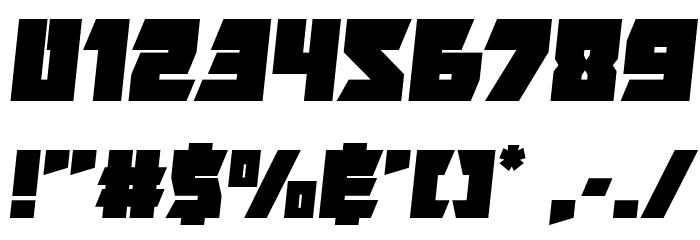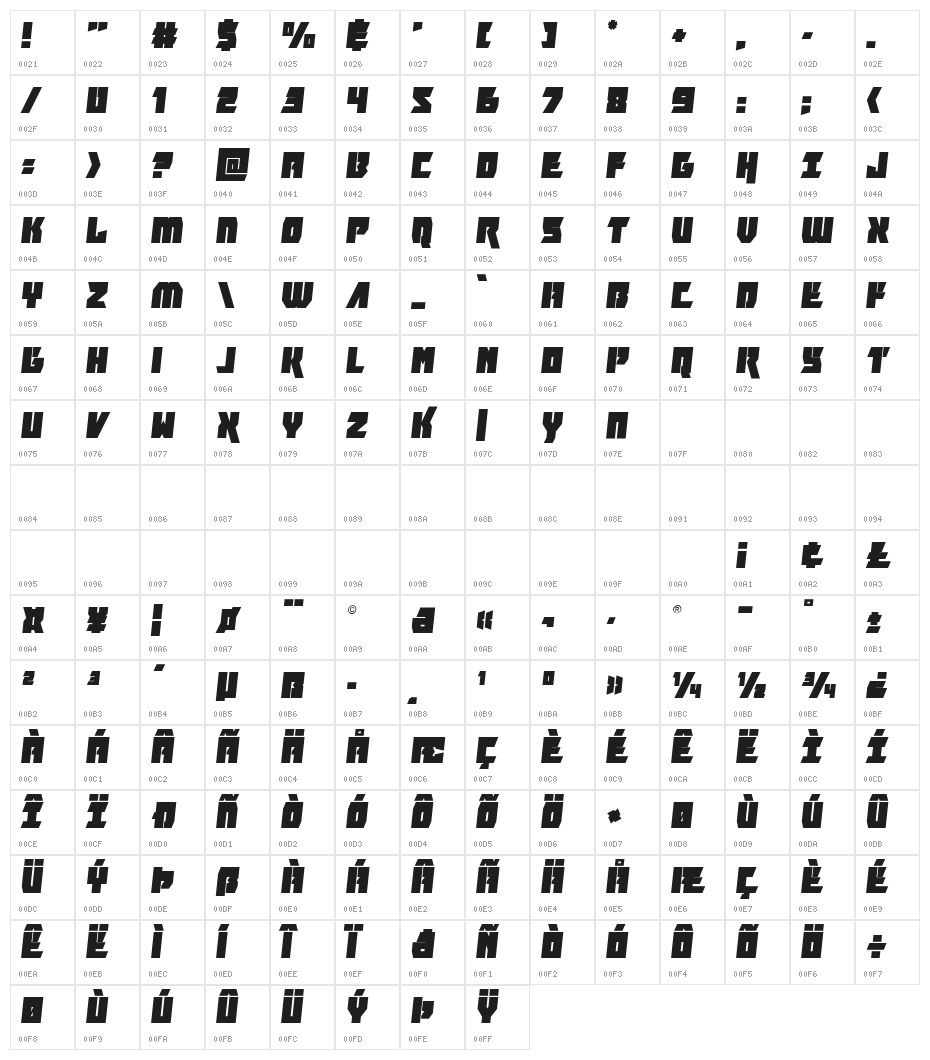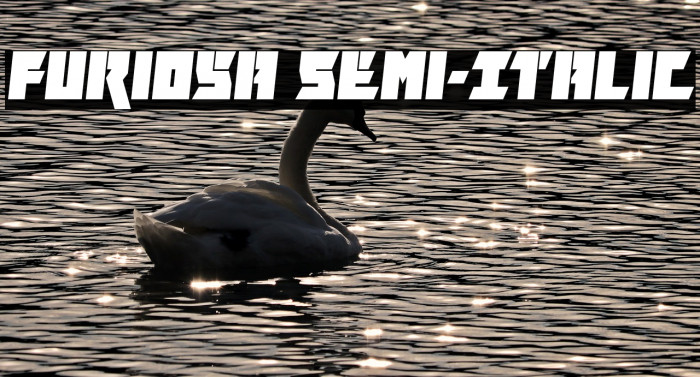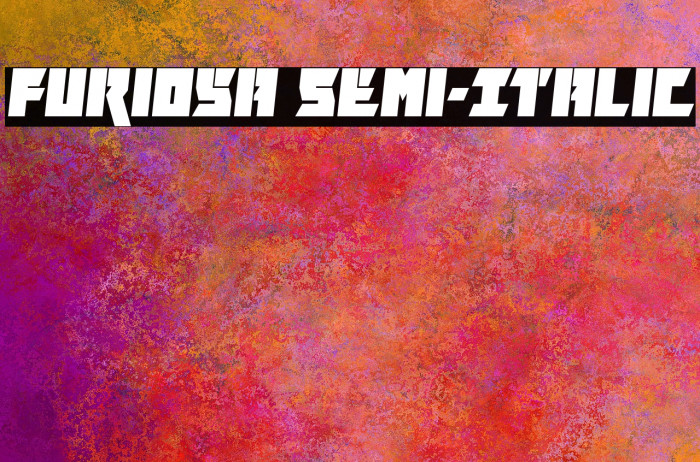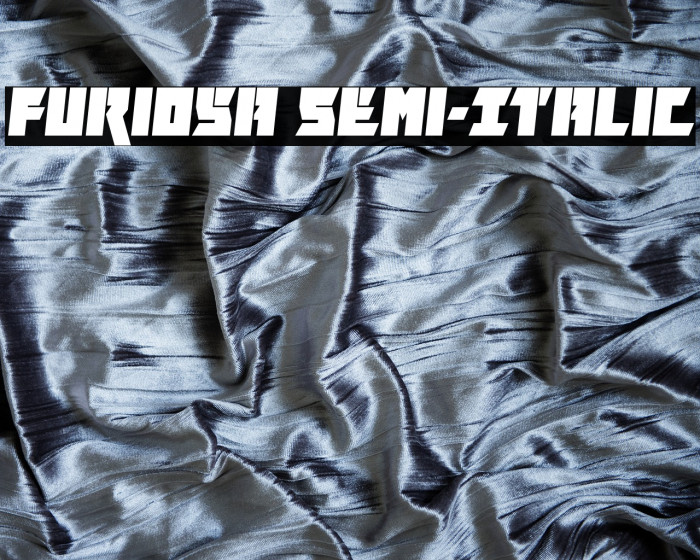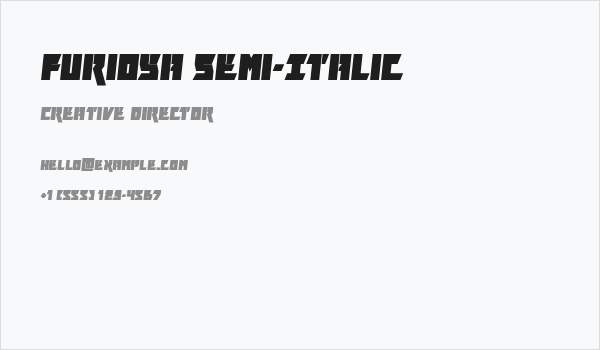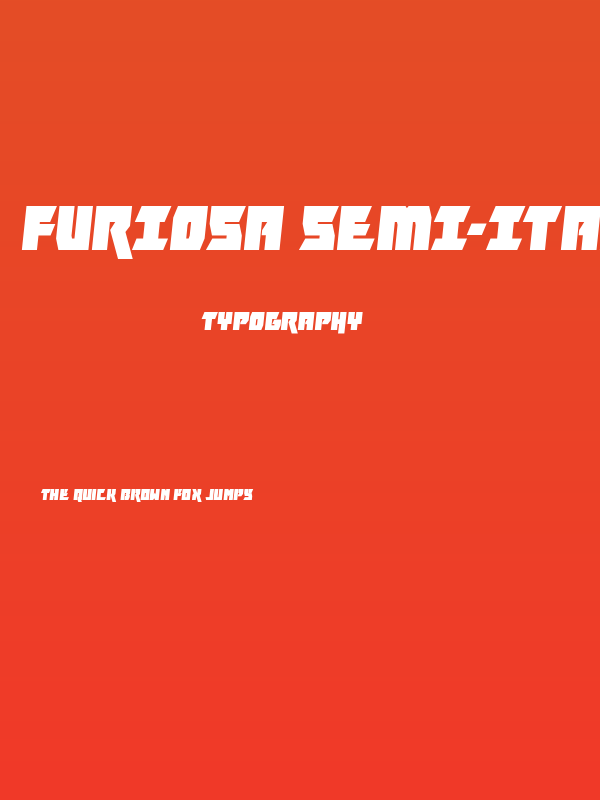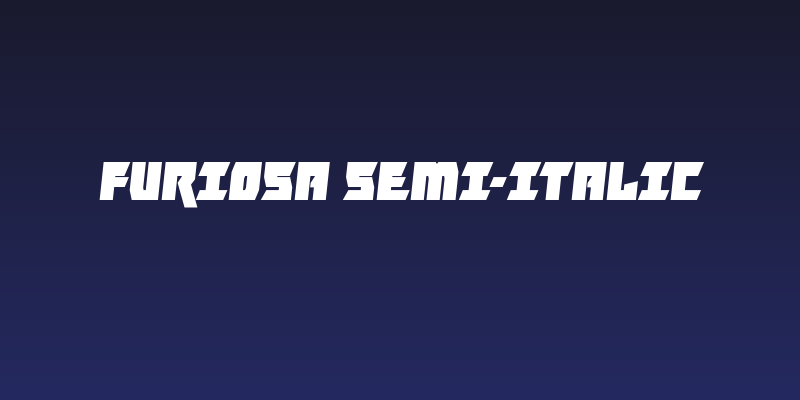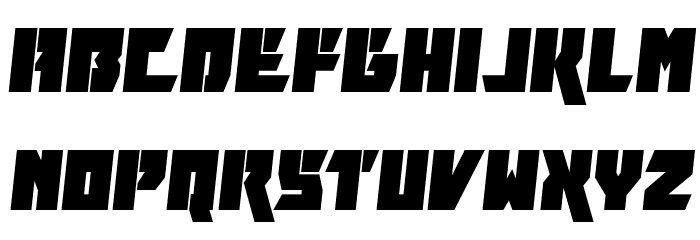
Furiosa Semi-Italic Font
Furiosa Semi-Italic Description
This font features a bold and angular design with a semi-italic slant, giving it a dynamic and aggressive appearance. The characters are constructed with sharp edges and geometric shapes, creating a futuristic and edgy look. The uppercase and lowercase letters maintain a consistent style, with the uppercase being more prominent and impactful. The numbers and special characters follow the same design principles, ensuring uniformity across all glyphs. This font's unique style makes it stand out, ideal for projects that require a strong visual impact.
| Proposed Projects | Ideal for video game titles, movie posters, branding for tech companies, and any project needing a strong, modern aesthetic. |